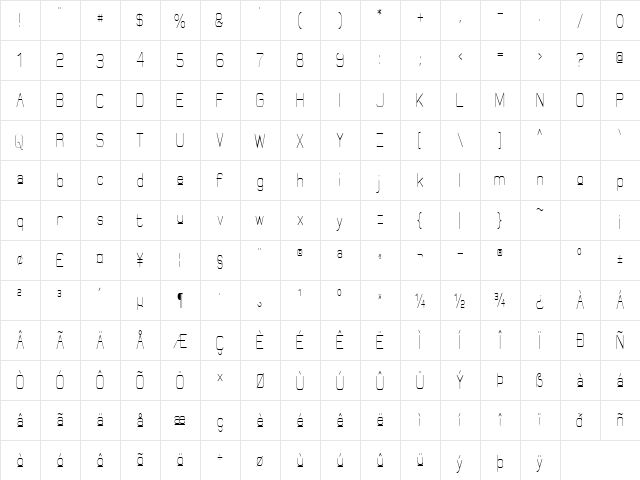
Elgethy Upper Condensed Regular
Design Context for Elgethy Upper Condensed Typeface
Elgethy Upper Condensed is a composed and adaptable typeface that performs quietly and consistently across a wide range of design contexts. Its narrow stance lets it pack a punch even in space-constrained designs.